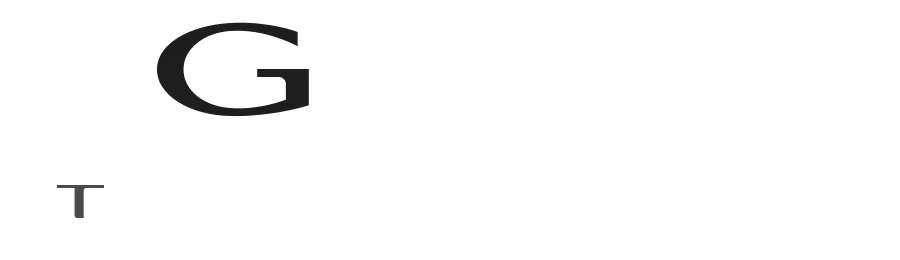
About Agnes Serif Font
"Agnes_serif" Font
Agnes Serif Font is a decorative font that shines as a display or heading face. Pair it with a clean sans-serif or serif font for body text — the contrast creates a clear hierarchy while the two styles stay balanced and easy to read.